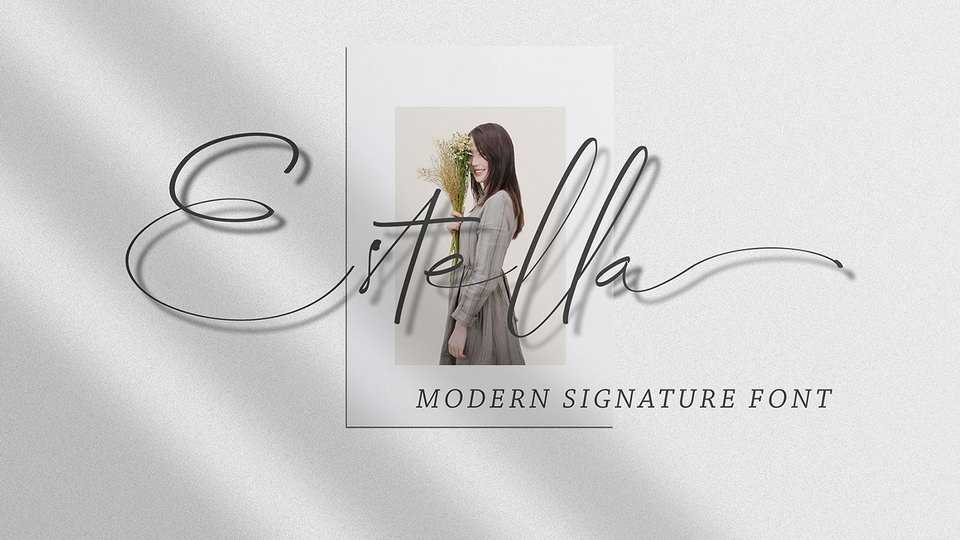
Download Estella font, a modern signature style script with flair. Estella is perfect for your brand identity, wedding invitation, or any design who need a signature style.
Designer: Canda Creative